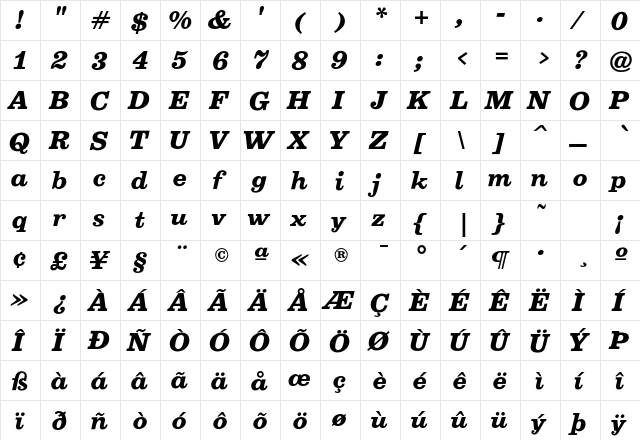
Belizio FB Bold Italic
Design Context for Belizio FB Bold Typeface
Belizio FB Bold is a composed and adaptable typeface that performs quietly and consistently across a wide range of design contexts. The slanted form adds forward momentum and visual energy. The heavy weight commands attention and anchors typographic hierarchies.
Pro Tip: Use Belizio FB Bold for emphasis, pull quotes, and subheadings where its slanted energy can add rhythm to the layout.